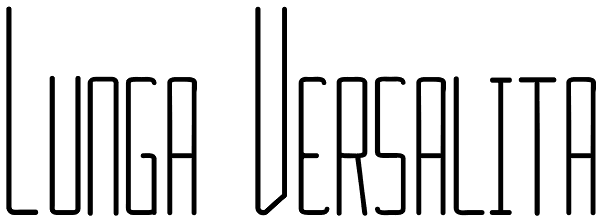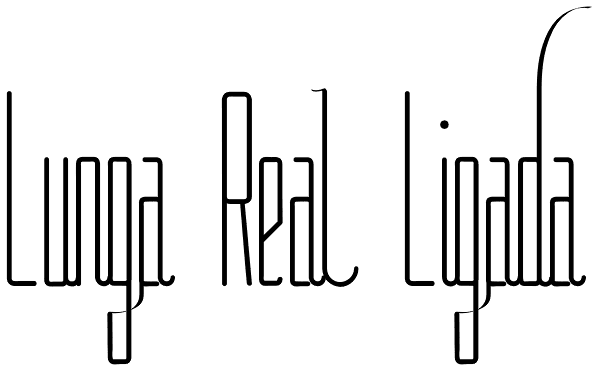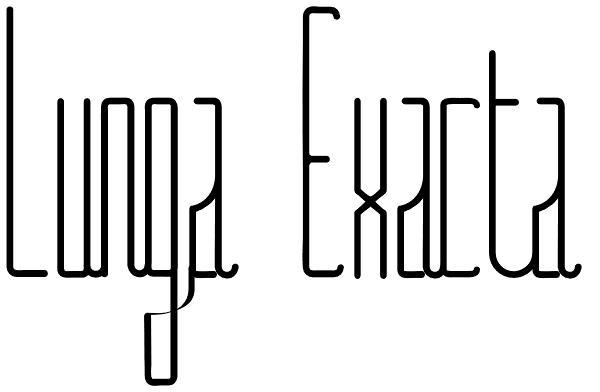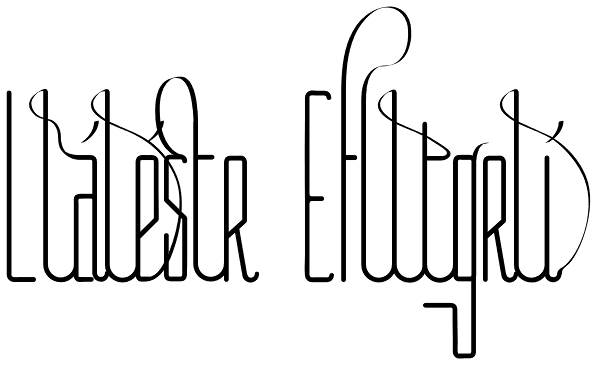
Lunga
Lunga is a wonderful condensed font. It was designed to be a legible type. It has lots of decorative glyphs and ligatures which were possible thanks to the open-type format! Lunga Real Ligada is the most complete style. The Open Type format contains...
Lunga Versalita
Lunga Real Ligada
Lunga Exacta
Lunga Extras